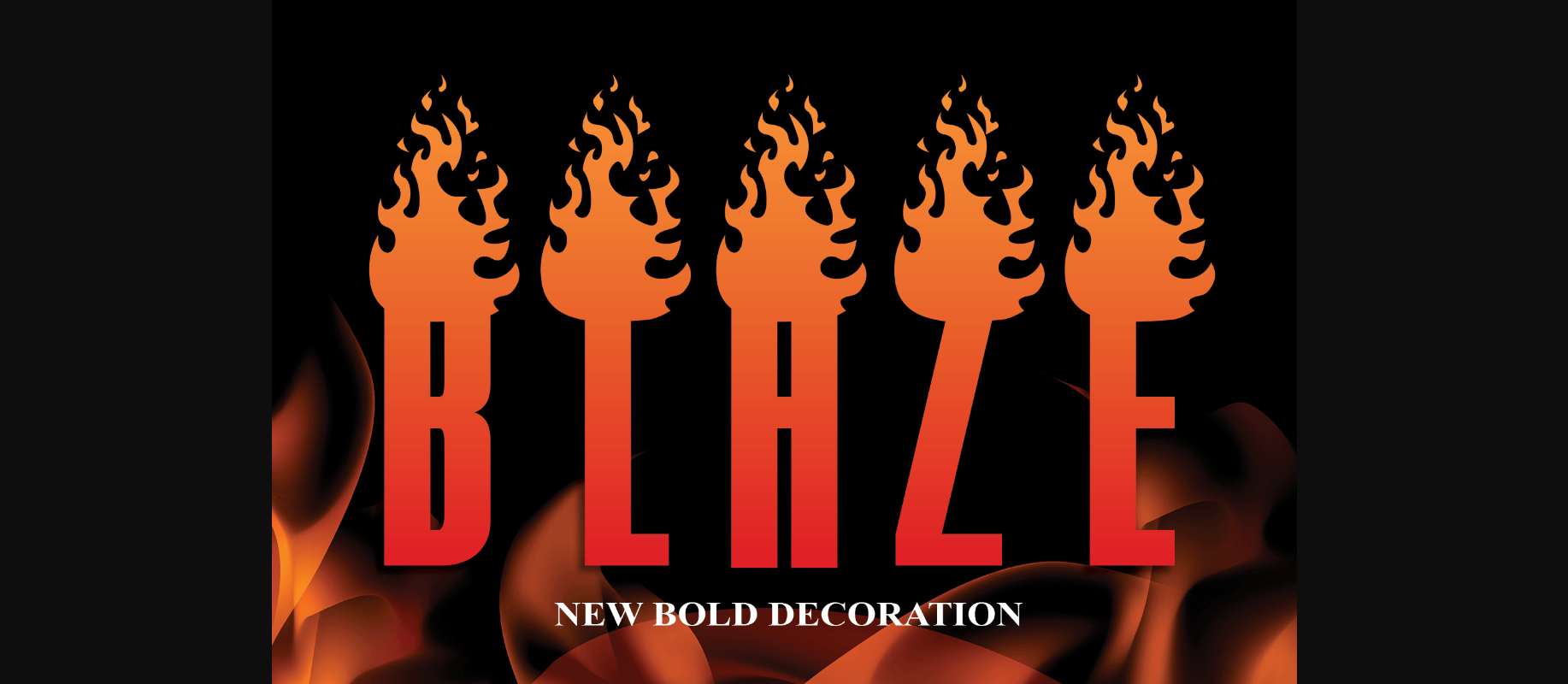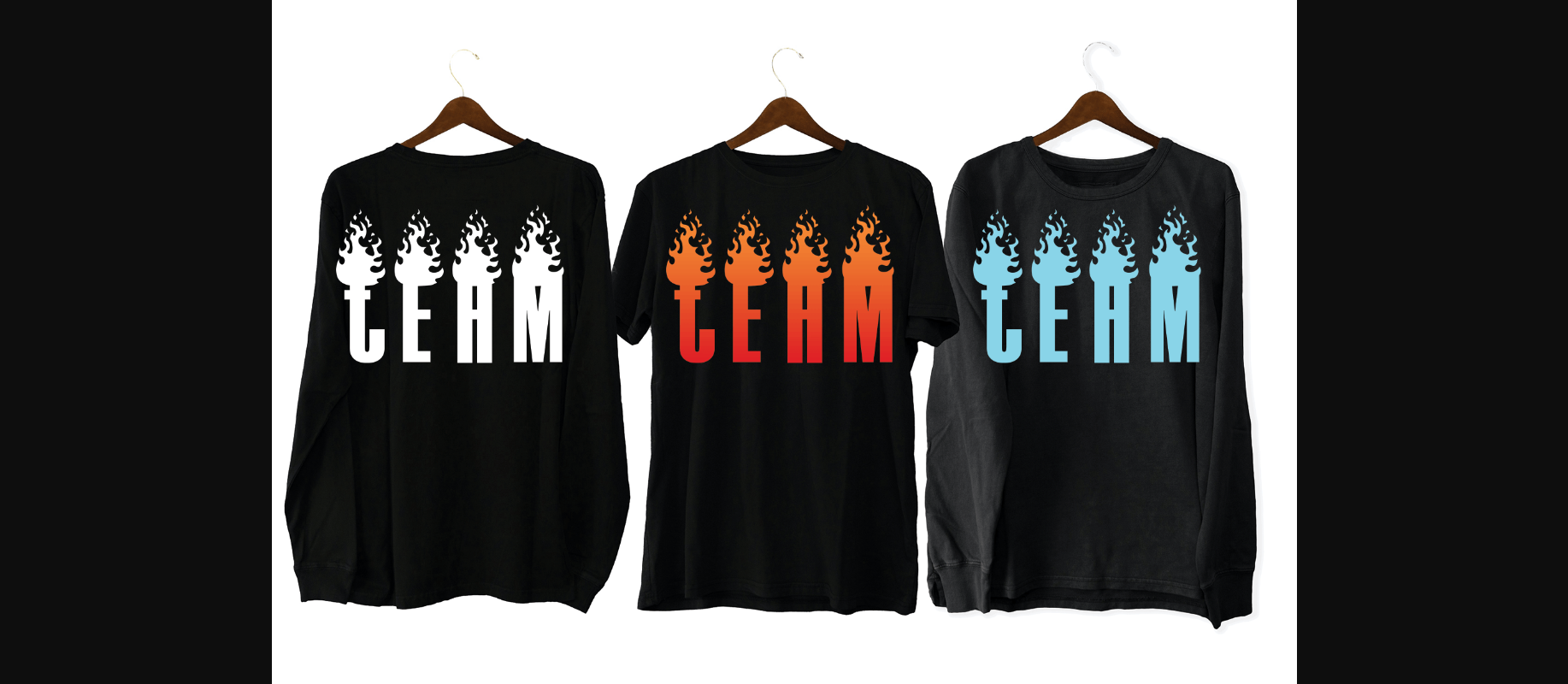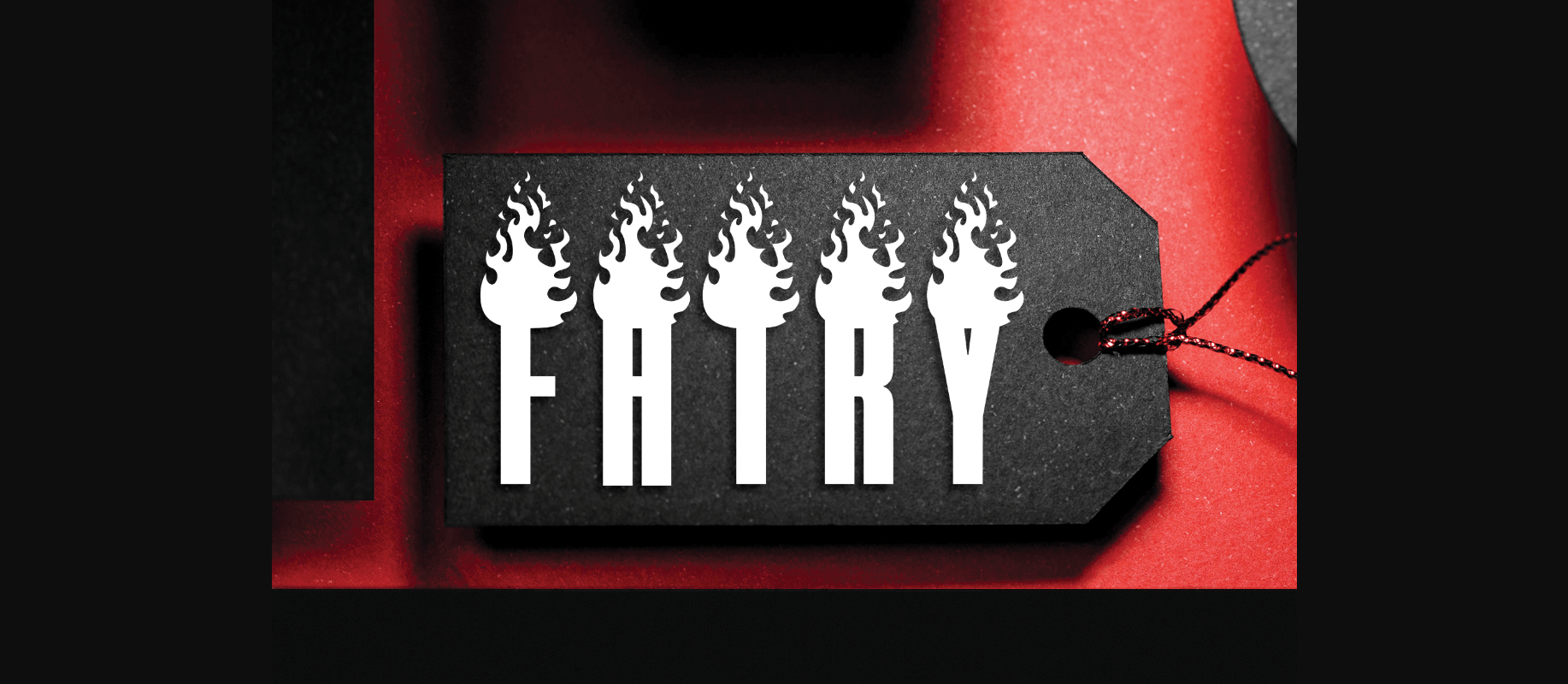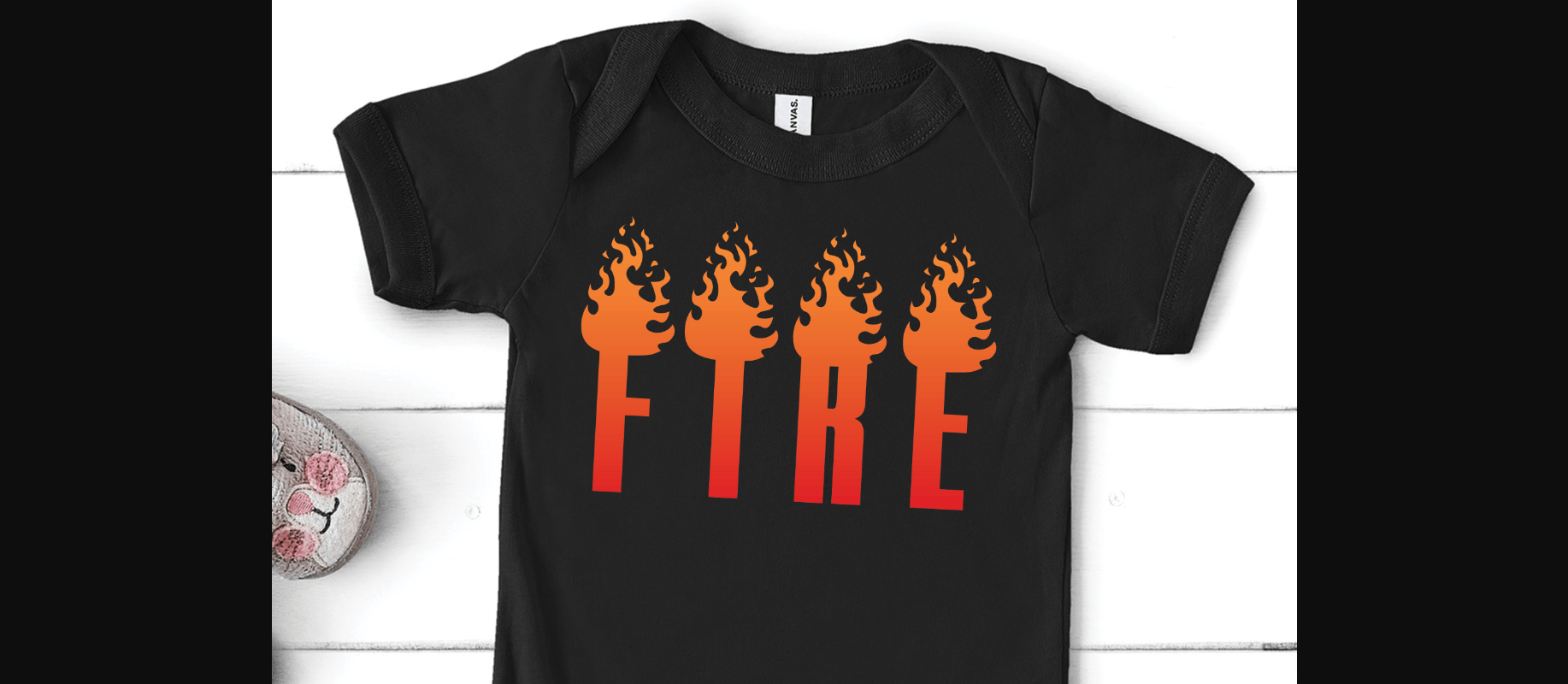
About Blaze Font
Blaze is a bold decorative font that you can use for a variety of projects such as wall hangings, social media posts, logos, advertisements, product packaging, product designs, labels, photography, watermarks, or anything that needs a special, fiery effect.